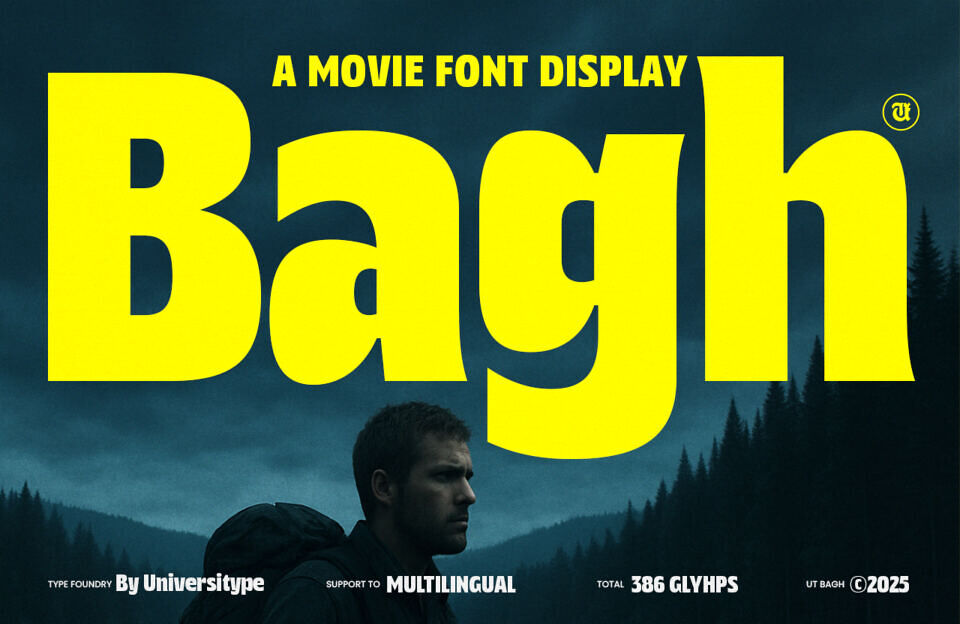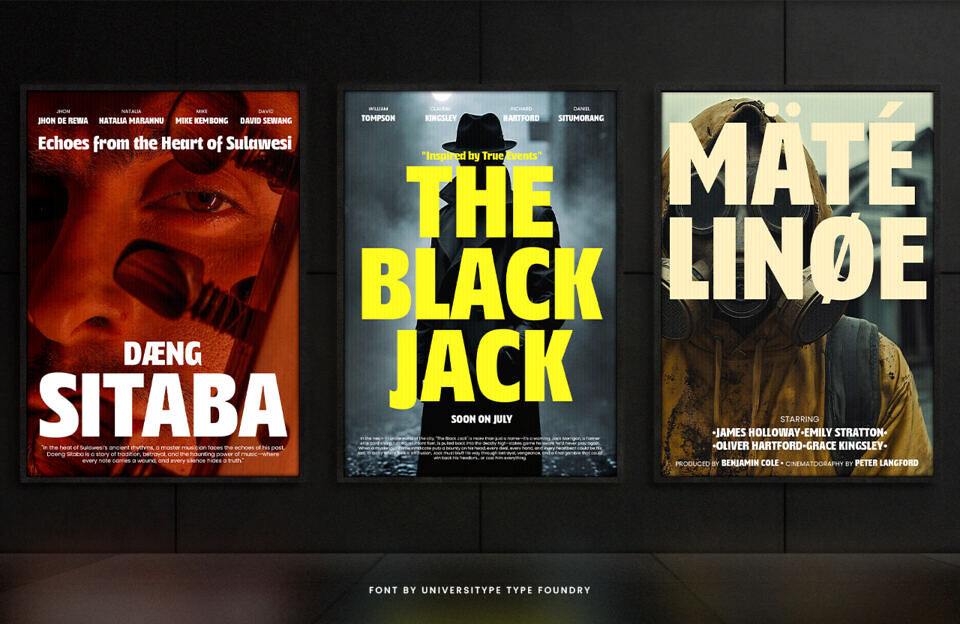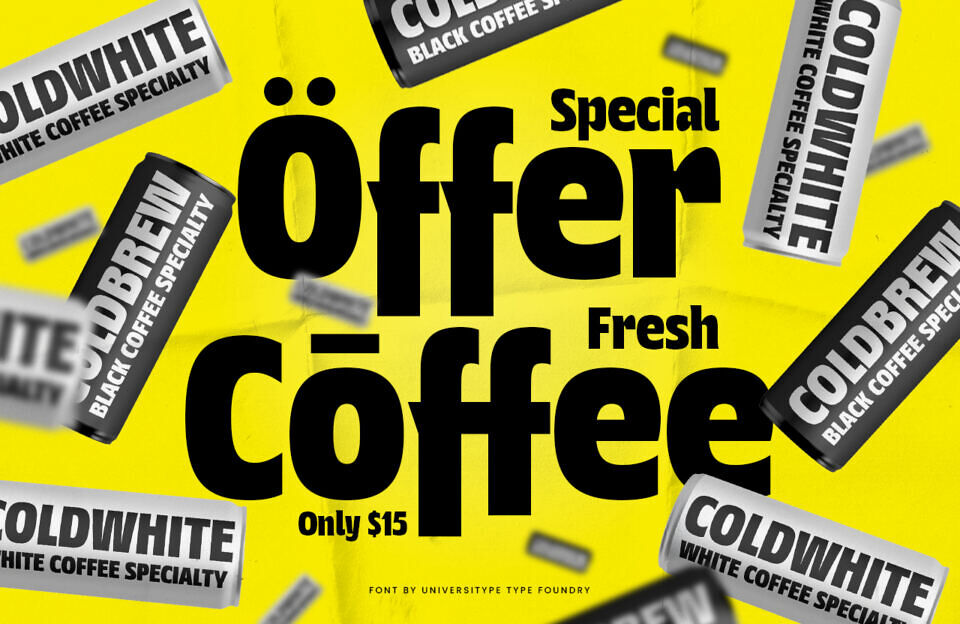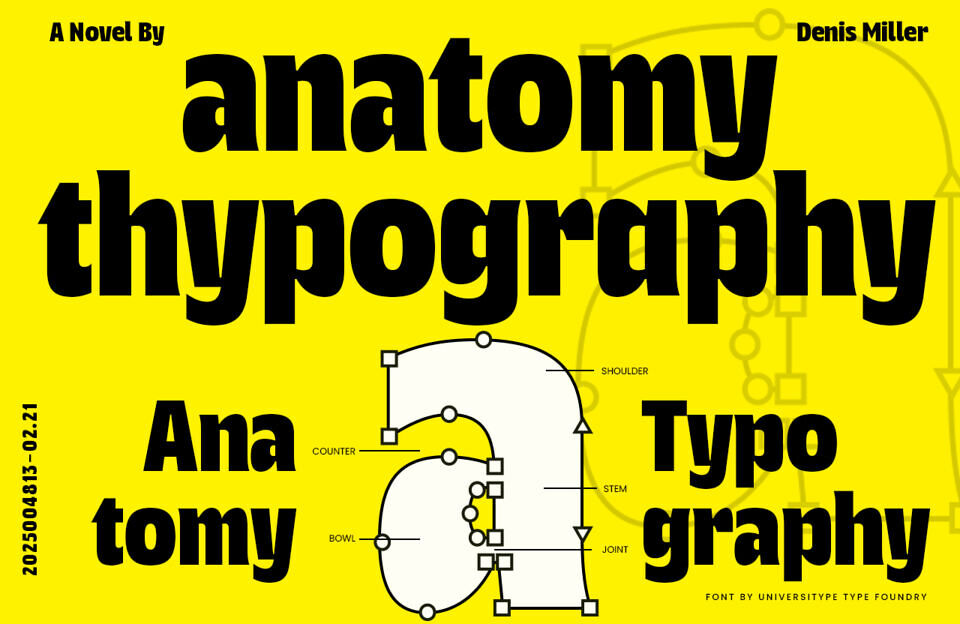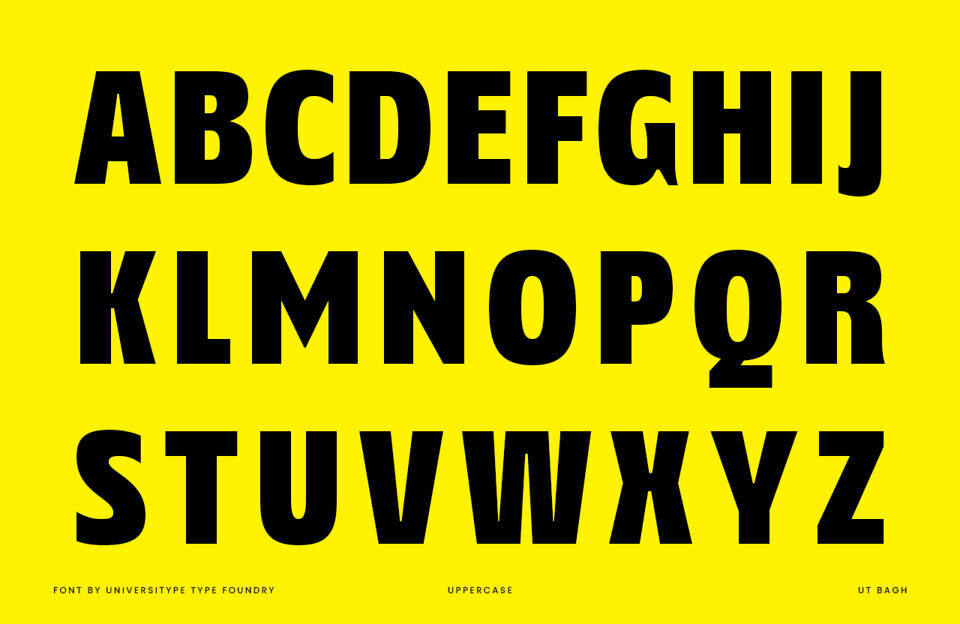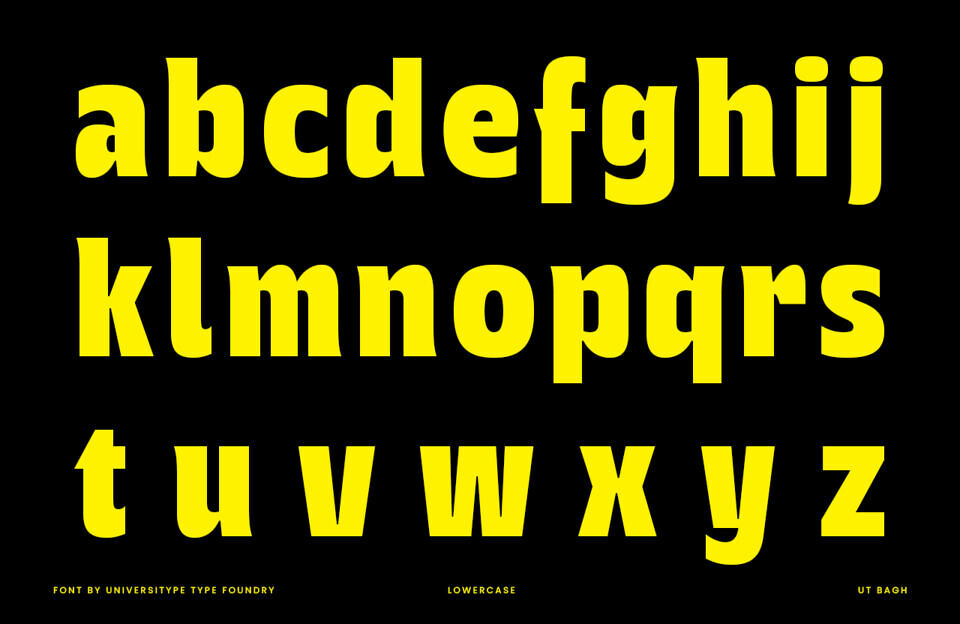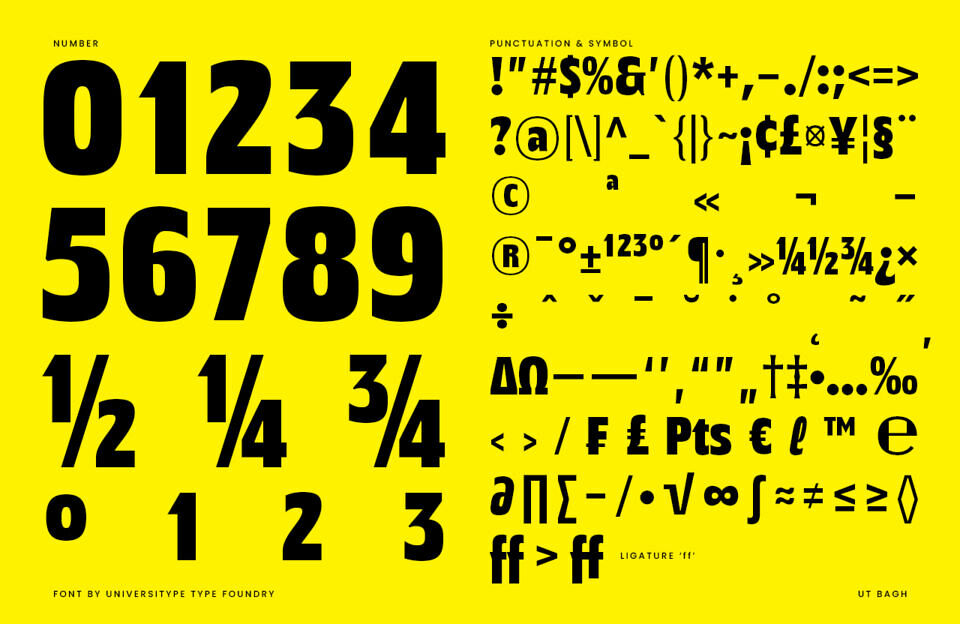
Ut Bagh Display Font
Uncover UT Bagh, a neo-grotesk sans-serif font engineered for impact on the big screen. This clean, modern, and confident typeface shines on massive movie posters and in rolling end credits.
With wide apertures and generous counters, UT Bagh ensures exceptional clarity and character. It’s the ideal choice for designers seeking a bold, versatile, and high-impact font for any project. Experience typographic excellence with UT Bagh.